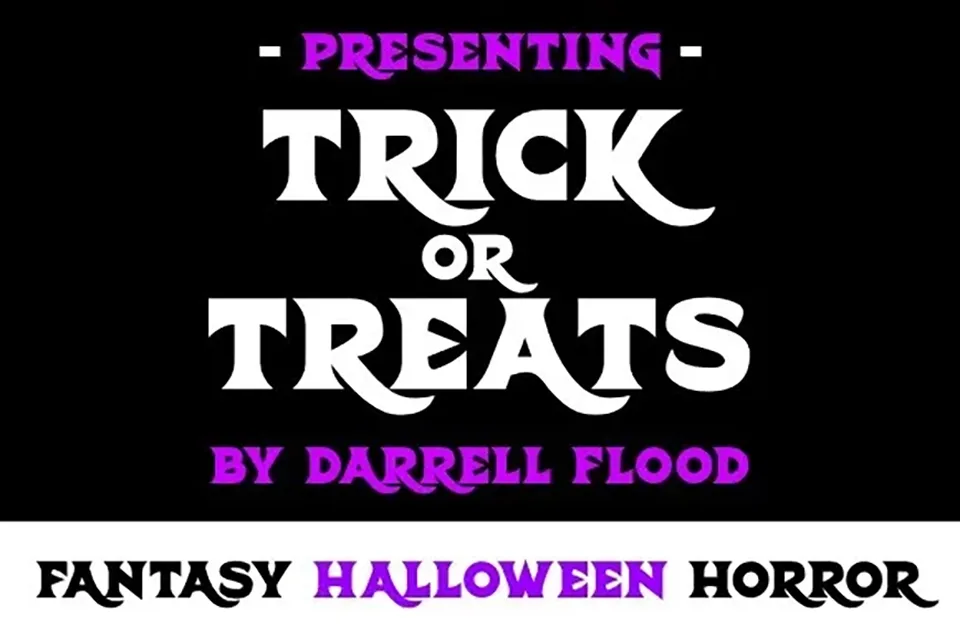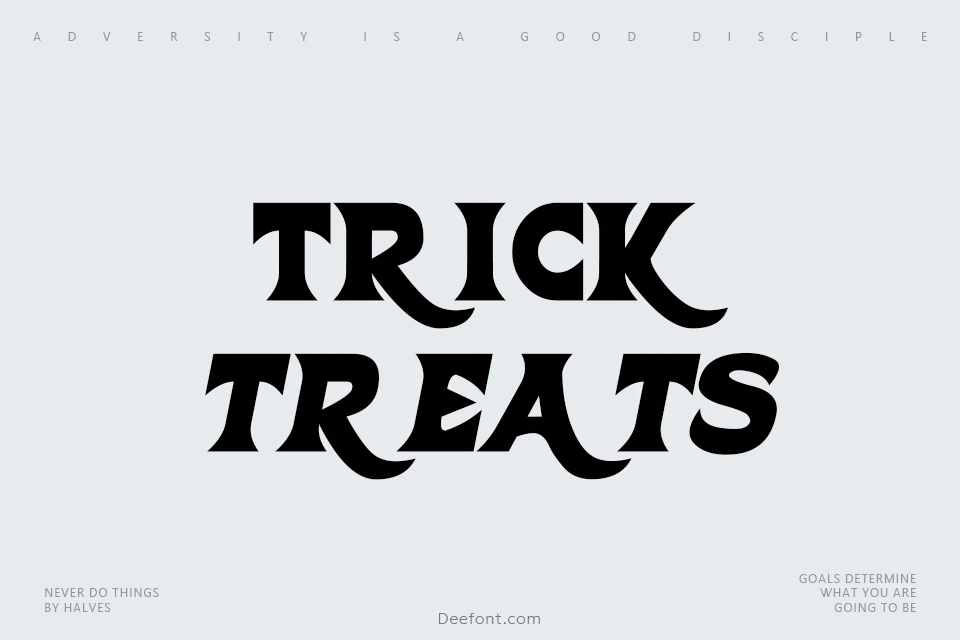
Trick Or Treats Font
Trick Or Treats Font is an expressive and elegant typeface with a fantastically flowing fantasy style, perfect for Halloween themes, dungeon explorations, and general fantasy use. Designed to bring a sense of whimsy and spookiness to your creative projects, it stands out with its unique character shapes and playful vibe, making it ideal for posters, invitations, and festive designs.